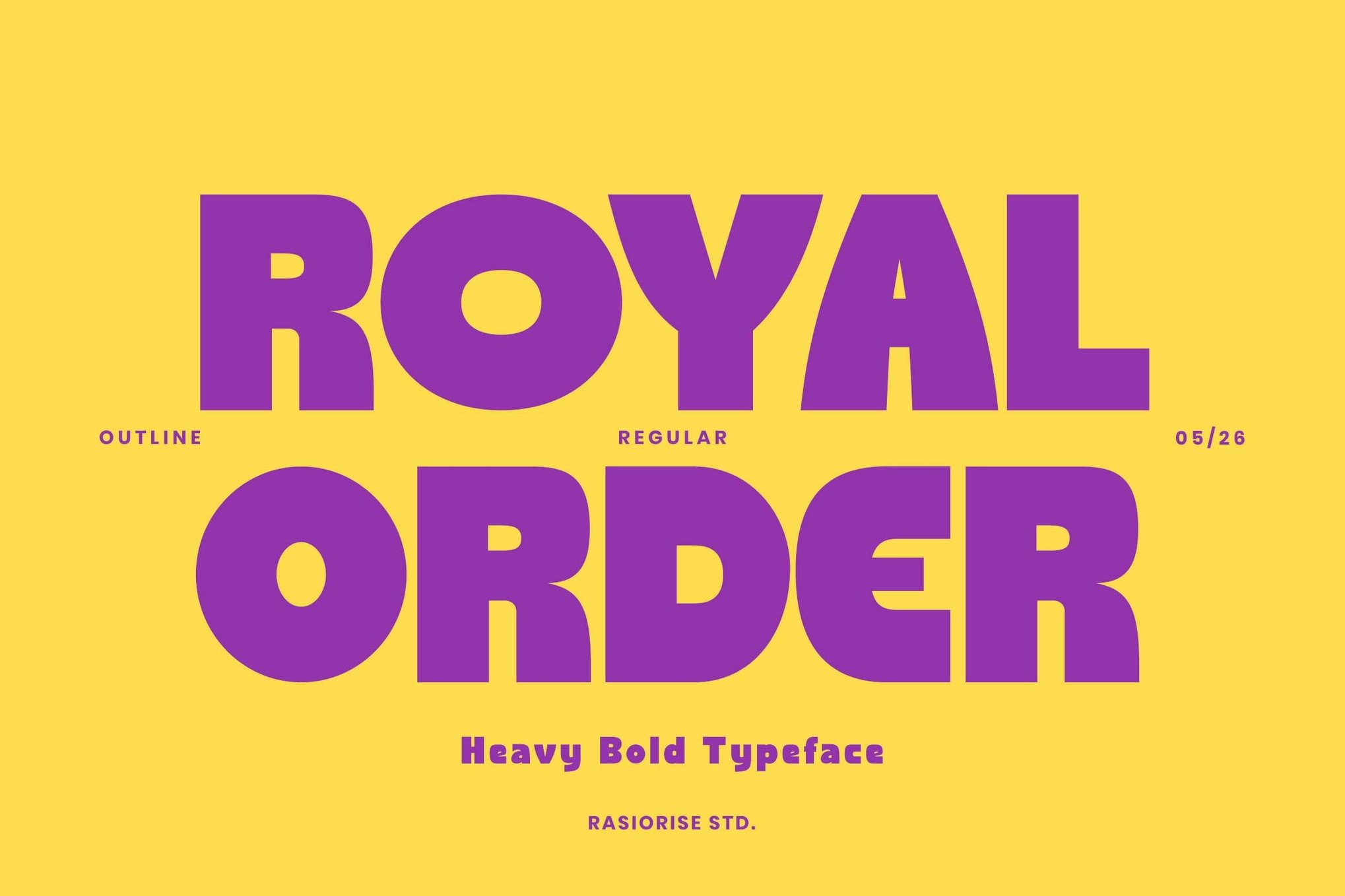
Royal Order Font
Royal Order Font is a stylish typeface that enhances visual appeal and works effortlessly in many design contexts. Royal Order- Bold Font is a display typeface inspired by classic sans serif forms with a playful modern twist. Designed with low spacing and strong matching with modern style design, delivers a confident personality while outstanding readability.
Featuring two distinctive styles Regular and Outline Royal Order Font works perfectly for bold headlines, branding, posters, packaging, logos, and eye-catching a project designs. The Outline version look thin adjustable, making it ideal for layered typography and standout compositions. Its solid structure, chunky weight, and imaginative character give every word a bold and powering presence. Royal Order Font also performs as a subheading and headline font, make exellent hierarchy and balance for modern visual design projects.